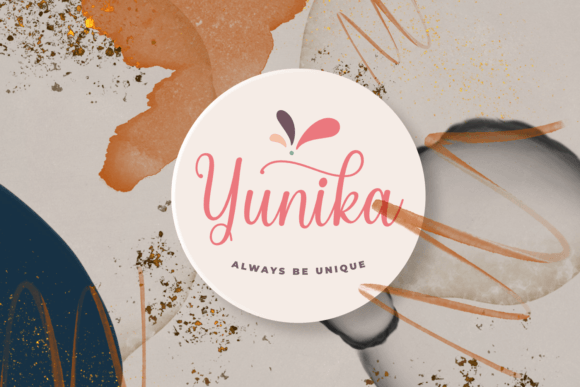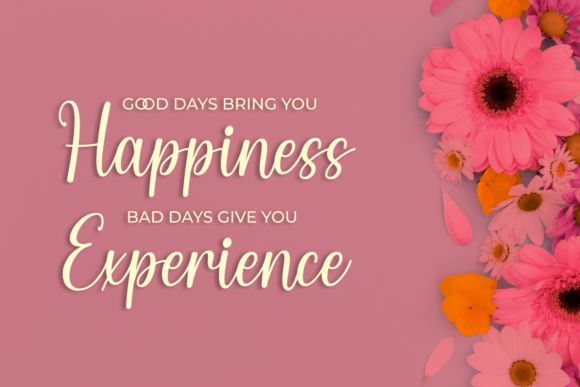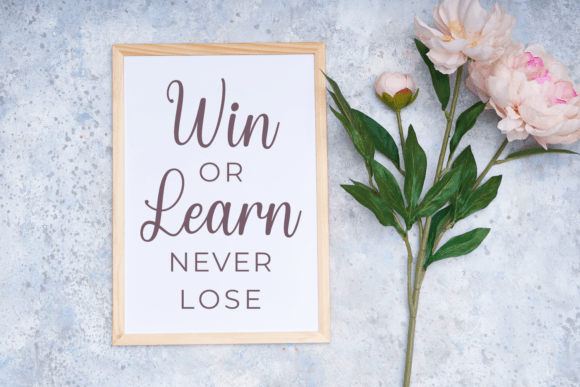
Caroline Julietta Font
Caroline Julietta is a stunning handwritten font that brings beauty and elegance to your projects. With its graceful curves and flowing strokes, it adds a touch of sophistication to any design. Perfect for invitations, cards, or any creative endeavor, Caroline Julietta captures the artistry of handcrafted lettering with its natural and charming style. Elevate your work with this beautiful font and give your text a touch of personalized elegance.